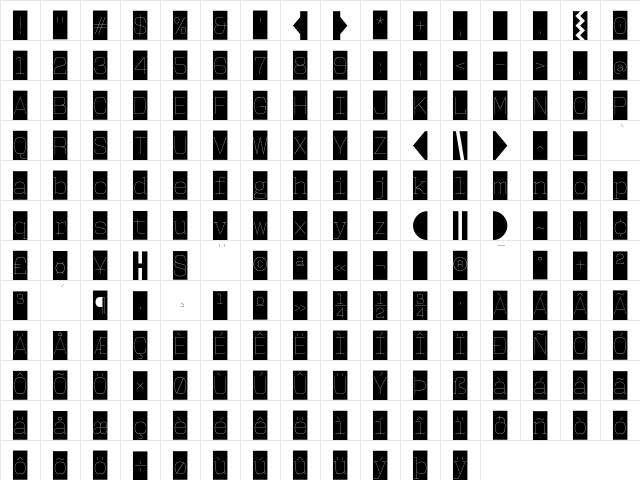
Complete User Hairline Cameo glyph index. Displaying only characters natively supported by User Hairline Cameo font.
User is a composed and adaptable typeface that performs quietly and consistently across a wide range of design contexts. Its slender proportions lend an understated elegance to any composition.